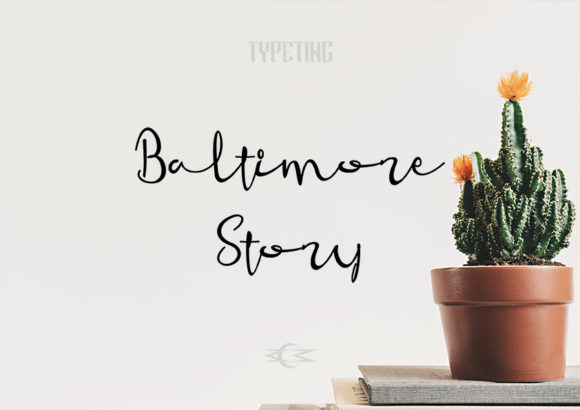
Dive into the world of Baltimore Story Font, a captivating script font family that breathes life into your designs. This exquisite creation by Typeting Studio transcends the ordinary, offering a unique handwritten charm that's perfect for adding a personal touch to your projects.
With its graceful strokes and elegant curves, Baltimore Story dances across your designs like a gentle breeze, carrying your words with grace and poise. Each letter is a work of art, meticulously crafted to evoke a sense of timeless beauty. The result is a font that's both distinctive and delicate, leaving an unforgettable impression on those who behold it.
Baltimore Story is a versatile font that shines in a myriad of design applications. Whether you're crafting wedding invitations that exude romance, creating heartfelt thank-you cards that express gratitude, or designing quotes that inspire the soul, this font is your perfect companion. Its versatility extends to logos and business cards, adding a touch of sophistication and professionalism to your branding efforts.
Step into the realm of creativity with Baltimore Story and witness the transformation of your designs. Let your imagination run wild as you explore the endless possibilities that await you. This font is your gateway to a world of elegance, charm, and timeless beauty.